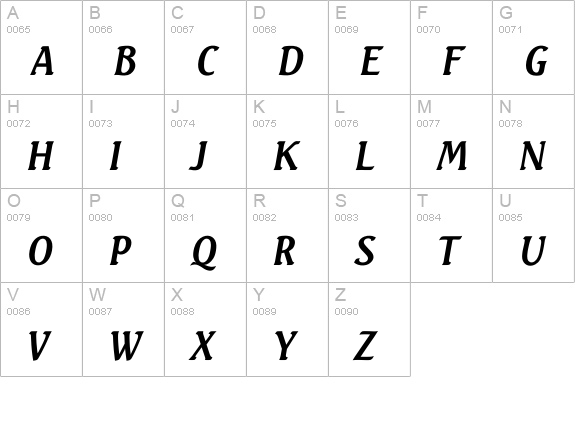
Iseagull Medium is a balanced, medium-weight variant in the Iseagull typeface family \xE2\x80\x94 well suited to sub-headlines, navigation, and balanced editorial work.
Iseagull Medium is a versatile and stylish font that combines modern elegance with a touch of playfulness. Its clean lines and balanced proportions make it ideal for a wide range of design projects, from logos and branding to headlines and body text. This font exudes a sense of sophistication and professionalism, making it perfect for both print and digital applications. Its medium weight strikes the perfect balance between boldness and subtlety, allowing it to make a statement without overpowering the overall design. The Iseagull Medium font is not only visually pleasing, but it is also incredibly easy to read. Its carefully crafted letterforms ensure optimal legibility, ensuring that your message is conveyed effectively to your audience. One of the best parts about the Iseagull Medium font is that it is free. Yes, you read that right! This high-quality font is freely available to download at FontsMarket.com. Whether you are a professional designer or an aspiring creative, you can now access this exceptional font without breaking the bank. So why wait? Enhance your design projects with the Iseagull Medium font and experience the perfect blend of style and clarity. Download it for free at FontsMarket.com and unleash your creativity today.